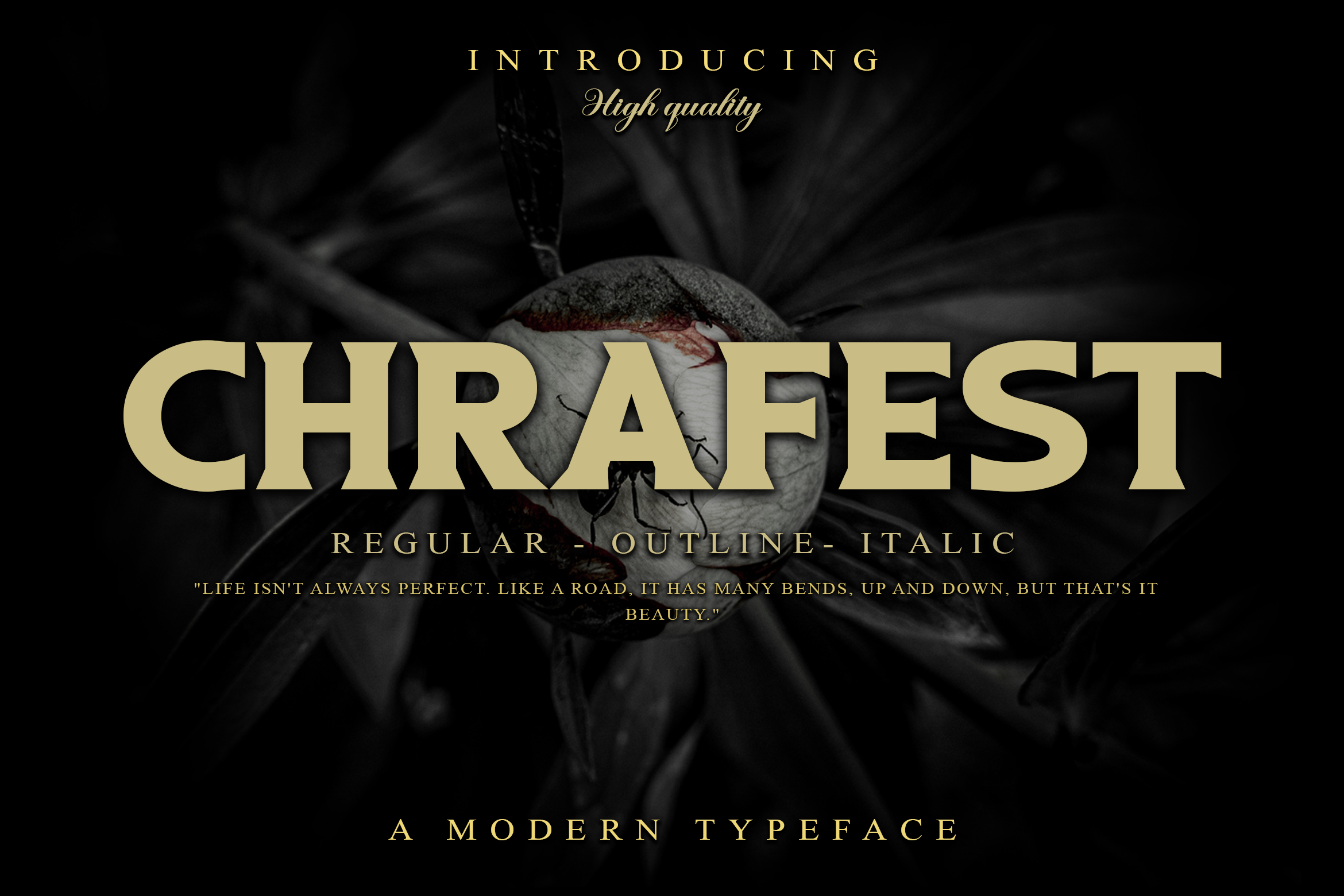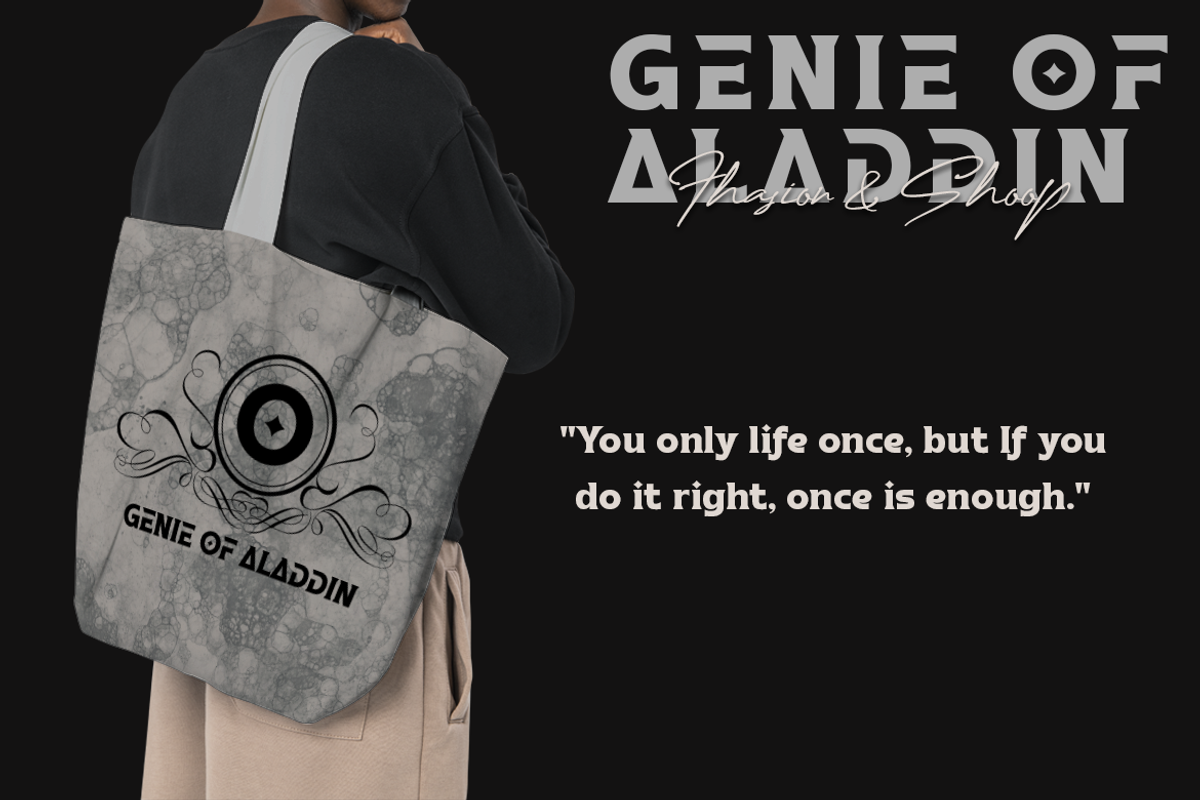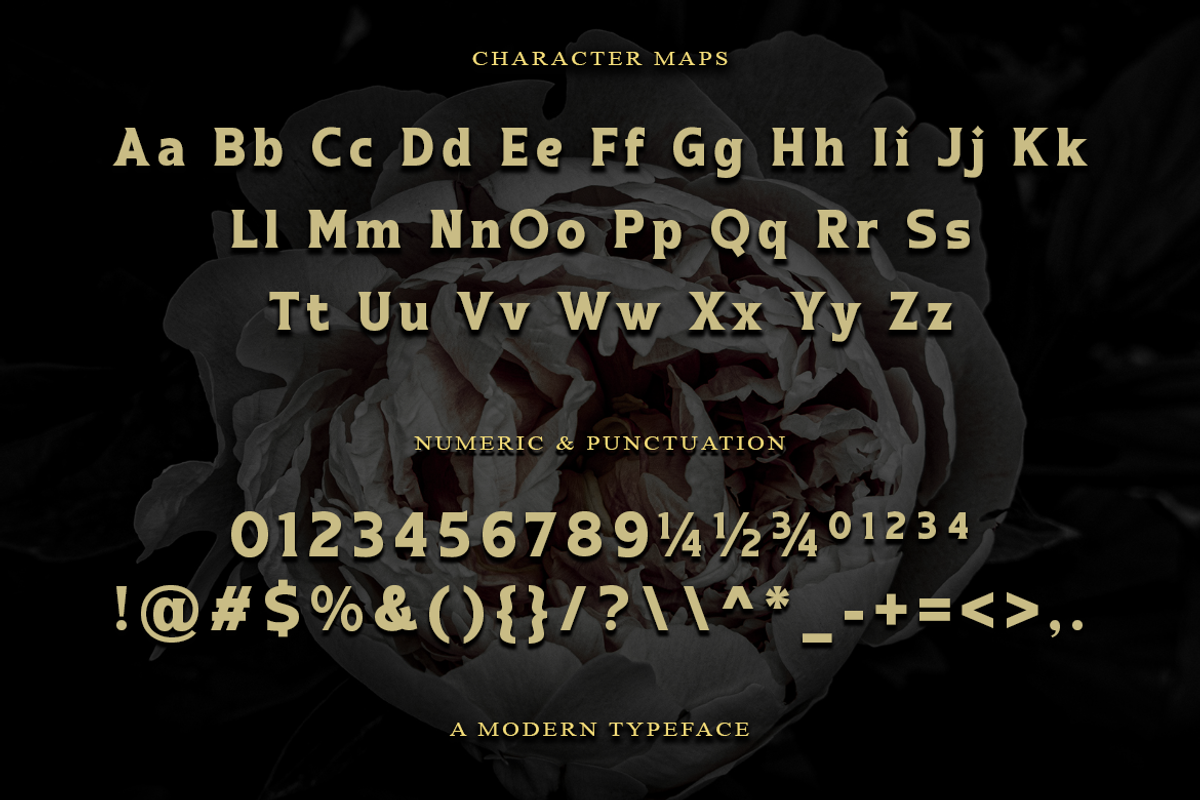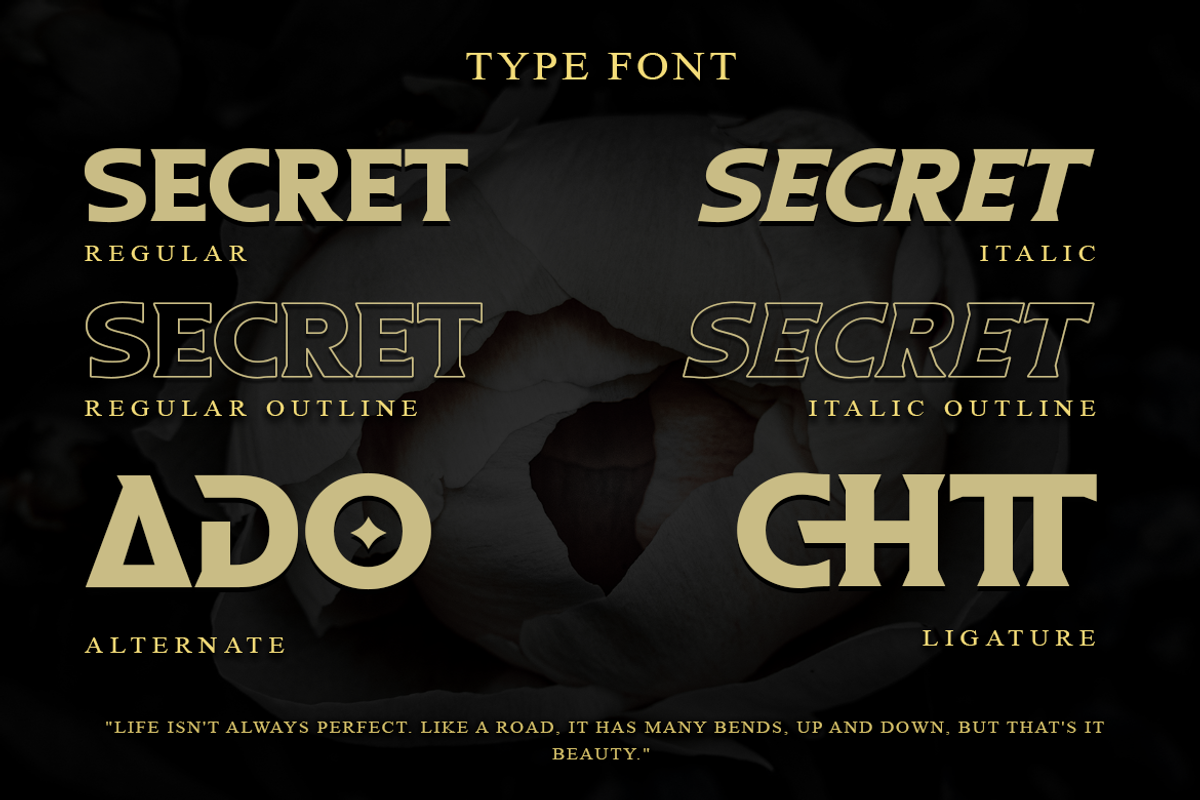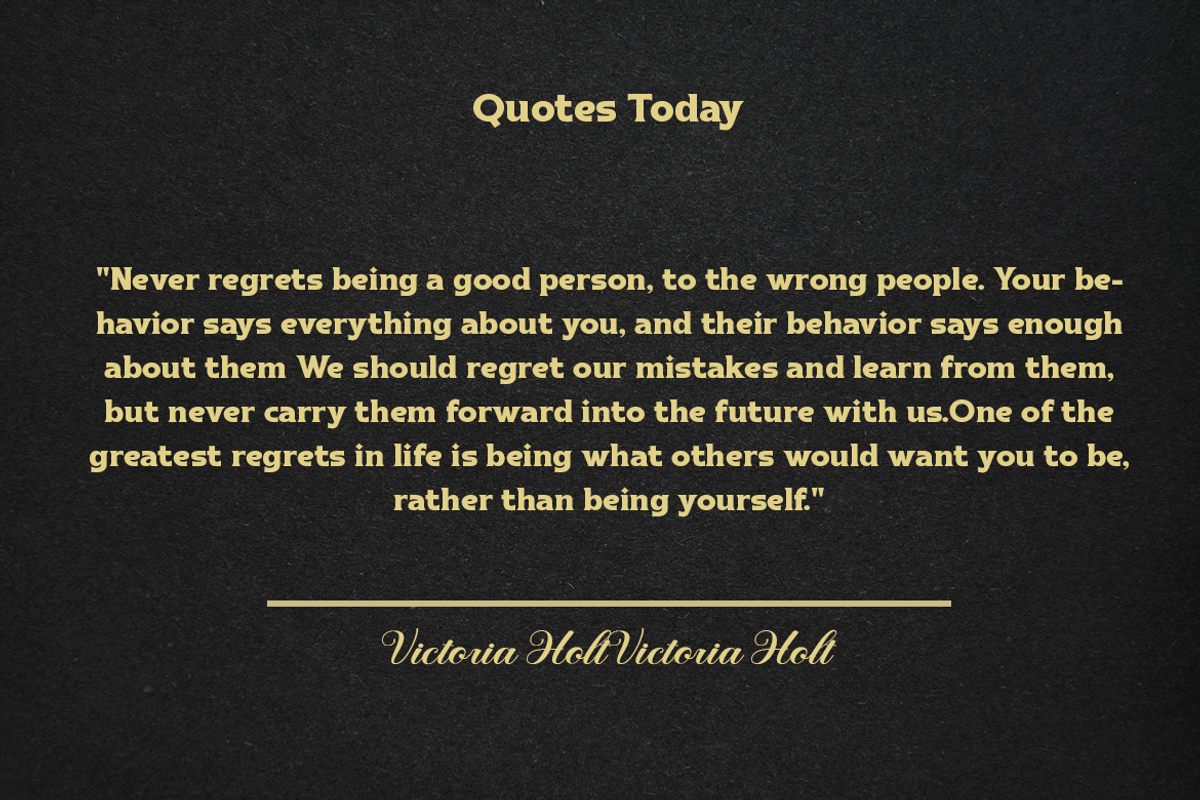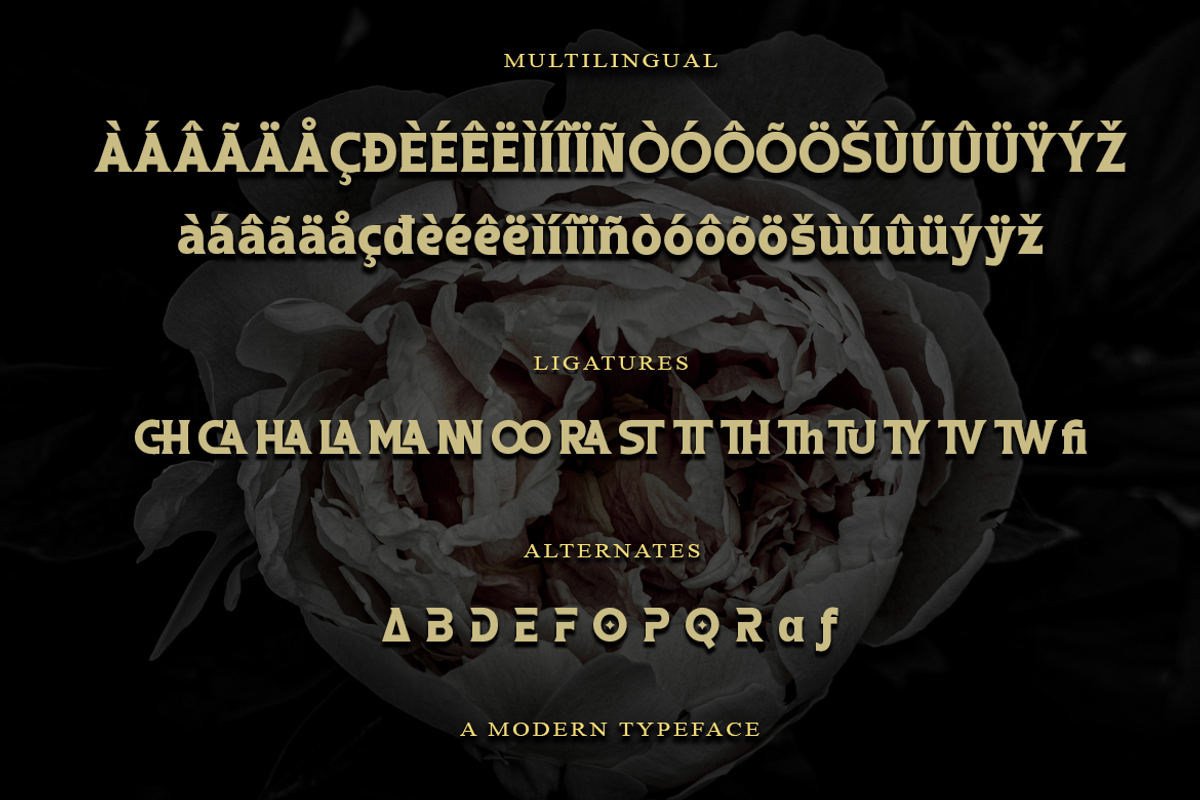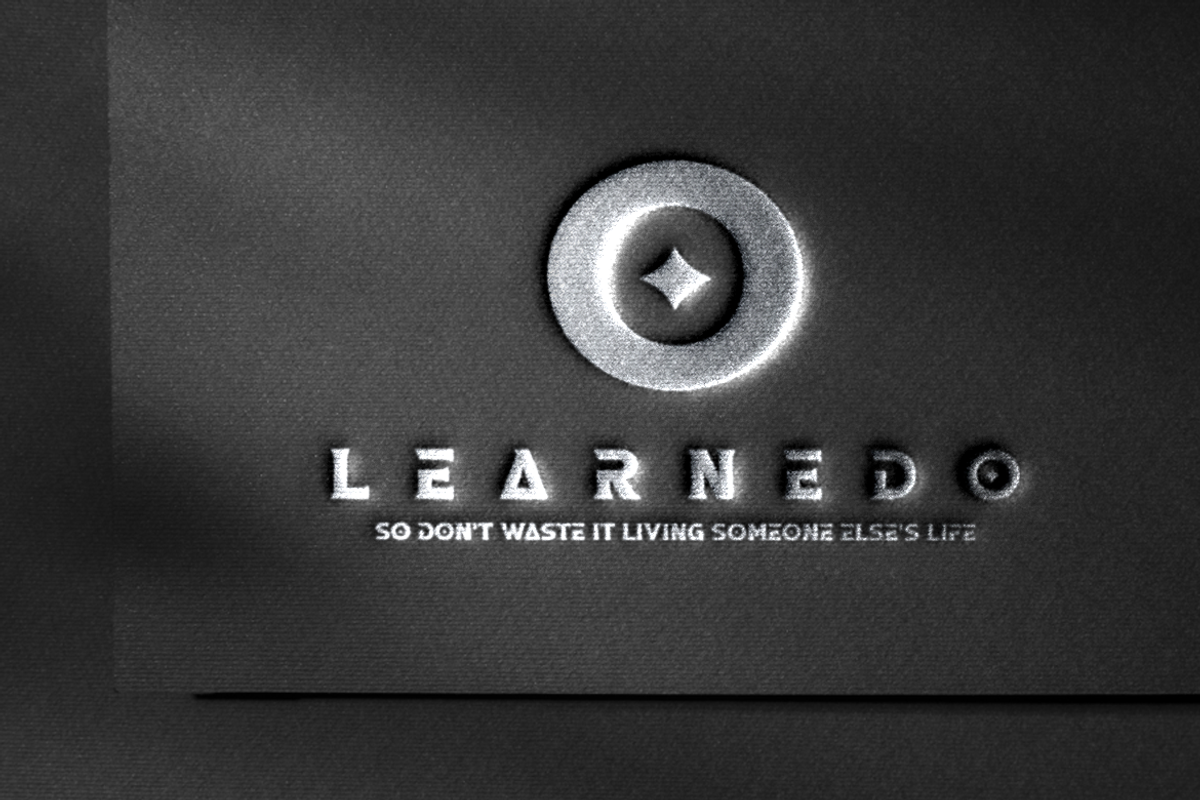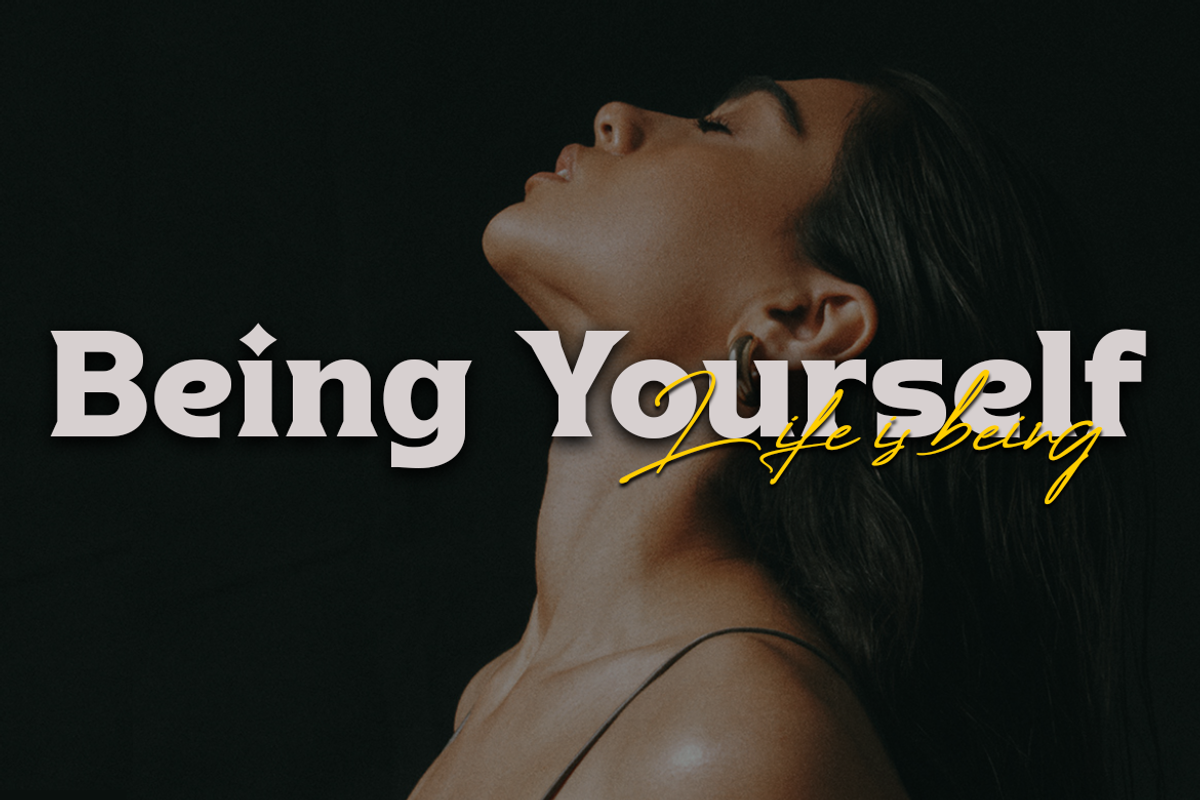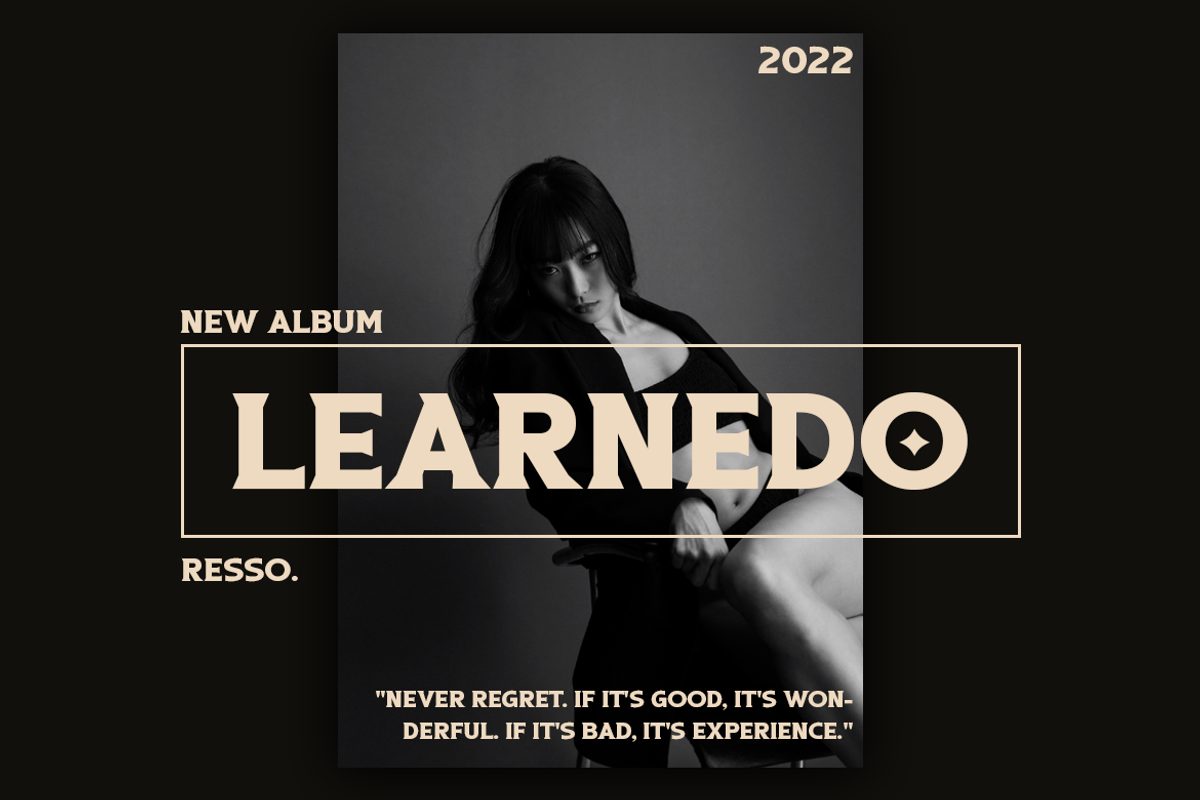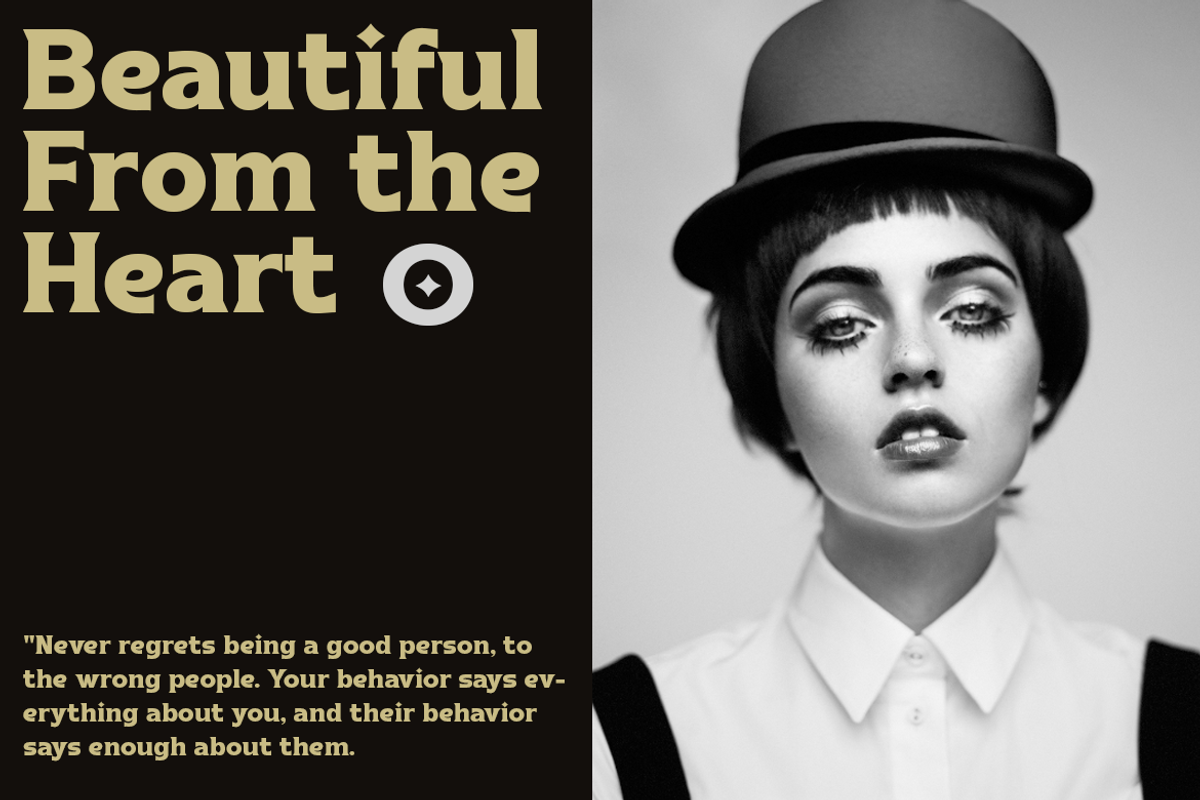
Chrafest - A Modern Typeface
Chrafest is modern serif characters which includes a large range of punctuation glyphs, numerals, and multilingual support. A full set of stylistic alternates for lowercase characters are also available.
Available :
- Italic
- Outline
- Outline Italic